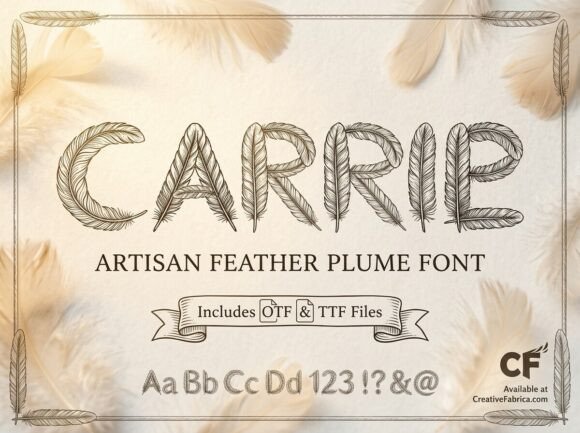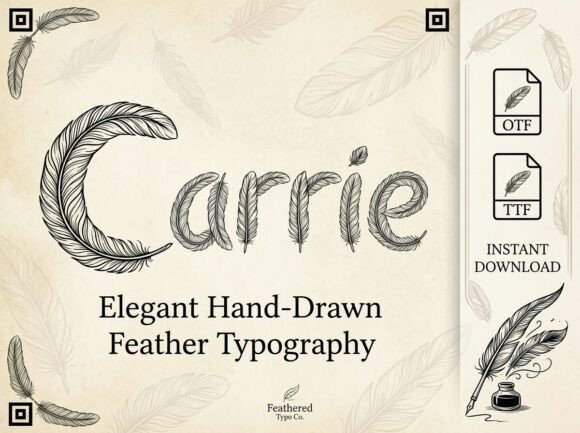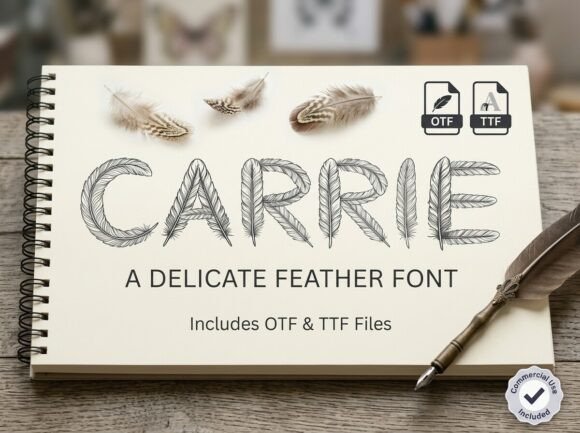
Carrie: The Illustrative Feather Script Font for Elegant Designs
Are you looking for a font that can add a touch of elegance and sophistication to your designs? Look no further than Carrie, a beautiful illustrative feather script font that can bring an ethereal, quill-drawn charm to your projects. In this article, we’ll explore the features and benefits of Carrie, and discuss how it can be used to create stunning designs for authors, poets, and brands.
What is Carrie Font?
Carrie is a unique script font that reimagines the alphabet as a series of delicate, wind-swept feathers. Every character in the font captures a sense of lightness and motion, blending artisanal line-work with a sophisticated silhouette. The result is a font that exudes a sense of elegance and refinement, perfect for designs that require a high-definition personal touch.
Key Features of Carrie Font
- Ethereal and Quill-Drawn Elegance: Carrie font features a delicate, hand-drawn design that gives it an ethereal and quill-drawn feel.
- Illustrative Feather Design: Each character in the font is designed to resemble a feather, adding a touch of whimsy and elegance to your designs.
- Artisanal Line-Work: The font features artisanal line-work that gives it a unique, hand-crafted feel.
- Sophisticated Silhouette: The characters in Carrie font have a sophisticated silhouette that adds to their elegance and refinement.
Best Use Cases for Carrie Font
Carrie font is perfect for designs that require a touch of elegance and sophistication. Here are some of the best use cases for the font:
- Book Titles: Carrie font is ideal for book titles, especially for authors and poets who want to add a touch of elegance to their book covers.
- Poetry Collection Headers: The font is also perfect for poetry collection headers, where its delicate and whimsical design can add a touch of magic to the pages.
- Personalized Stationery: Carrie font can be used to create beautiful personalized stationery, such as wedding invitations, greeting cards, and thank-you notes.
- Luxury Artisanal Packaging: The font’s elegant and sophisticated design makes it perfect for luxury artisanal packaging, such as high-end jewelry boxes, candle labels, and gourmet food packaging.
Why Choose Carrie Font?
There are many reasons why you should choose Carrie font for your designs. Here are a few:
- Unique and Eye-Catching Design: Carrie font has a unique and eye-catching design that will set your designs apart from the rest.
- Elegant and Sophisticated: The font’s elegant and sophisticated design makes it perfect for designs that require a touch of refinement and luxury.
- High-Definition Personal Touch: Carrie font can add a high-definition personal touch to your designs, making them more engaging and memorable.
- Perfect for Storytellers: The font’s whimsical and illustrative design makes it perfect for authors, poets, and brands that want to communicate a “storyteller” aesthetic.
Tips for Using Carrie Font
Here are some tips for using Carrie font in your designs:
- Use it as a Title Font: Carrie font is perfect for use as a title font, where its elegant and sophisticated design can add a touch of luxury to your designs.
- Pair it with a Simple Font: To create a beautiful contrast, pair Carrie font with a simple font for body text.
- Experiment with Colors: Carrie font looks beautiful in a variety of colors, so don’t be afraid to experiment and find the perfect color for your design.
- Use it for Branding: The font’s unique and eye-catching design makes it perfect for branding, where it can help to create a memorable and engaging identity for your business.
| Font Name | Carrie Font |
In conclusion, Carrie font is a beautiful and elegant illustrative feather script font that can add a touch of sophistication and refinement to your designs. Its unique and eye-catching design makes it perfect for authors, poets, and brands that want to communicate a “storyteller” aesthetic with a high-definition personal touch. With its many use cases and tips for use, Carrie font is a great addition to any designer’s font collection.